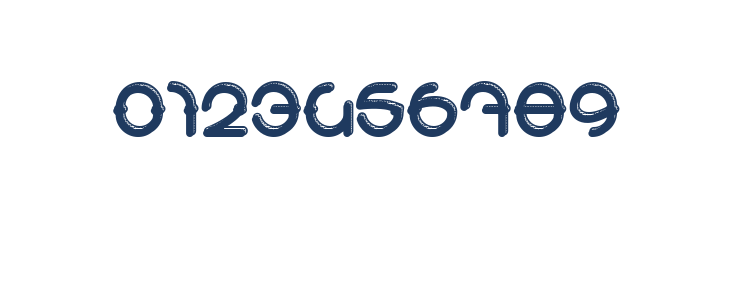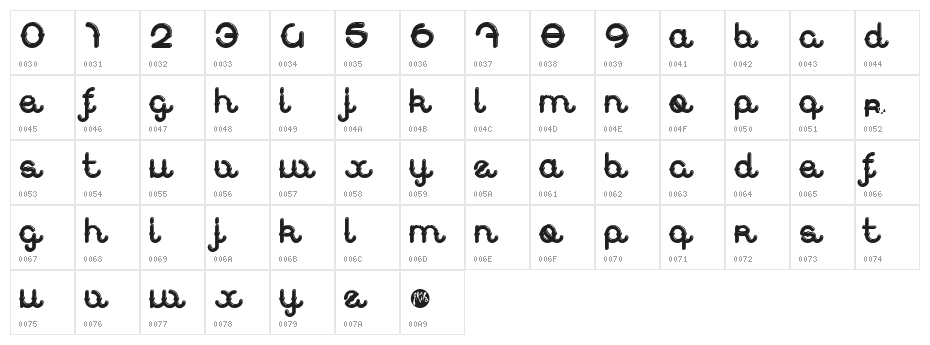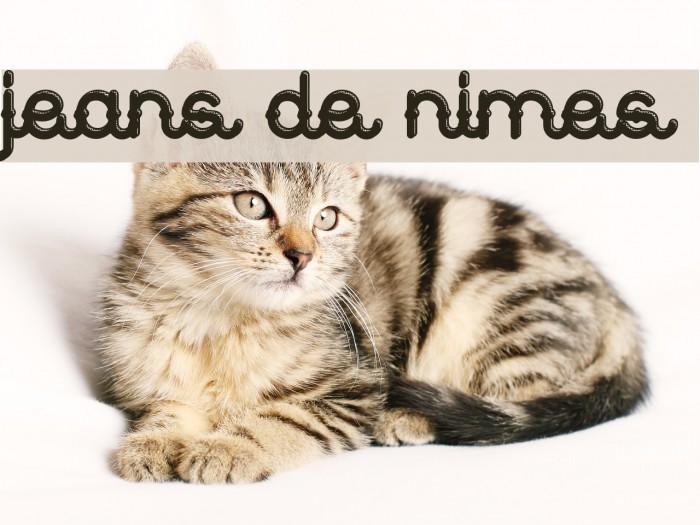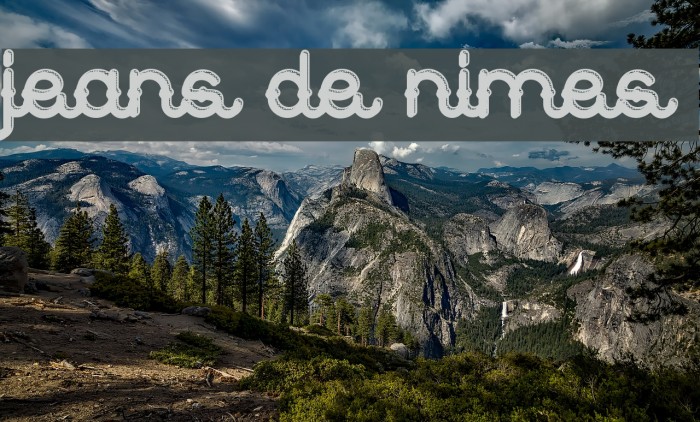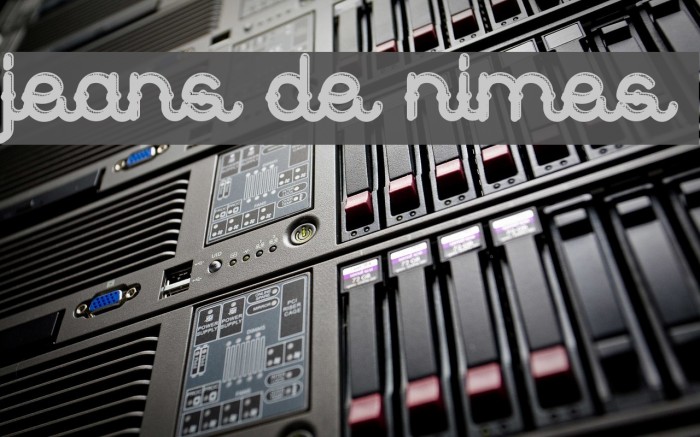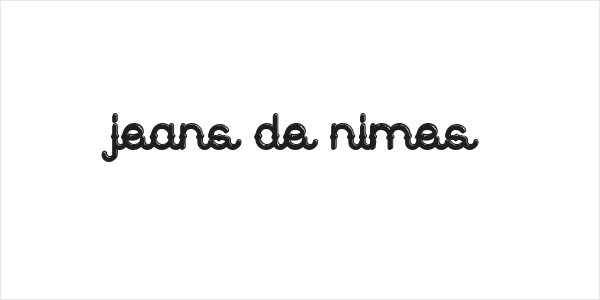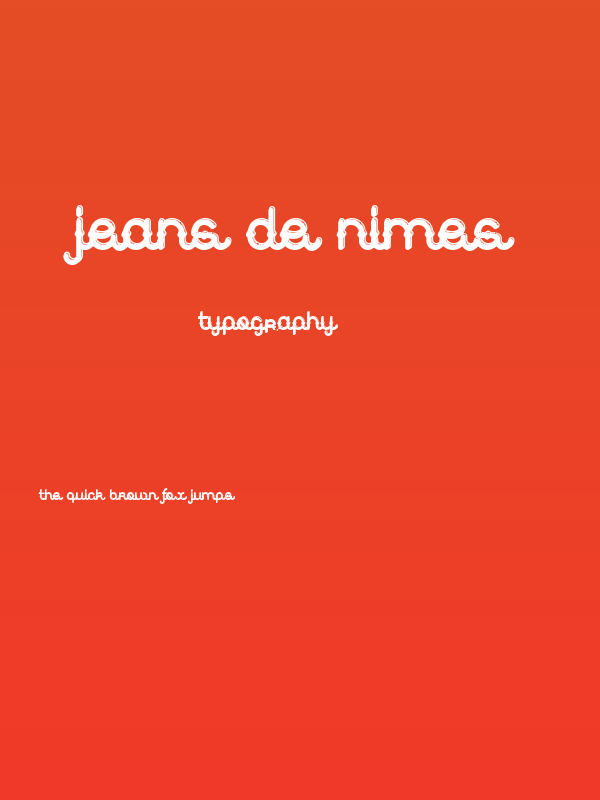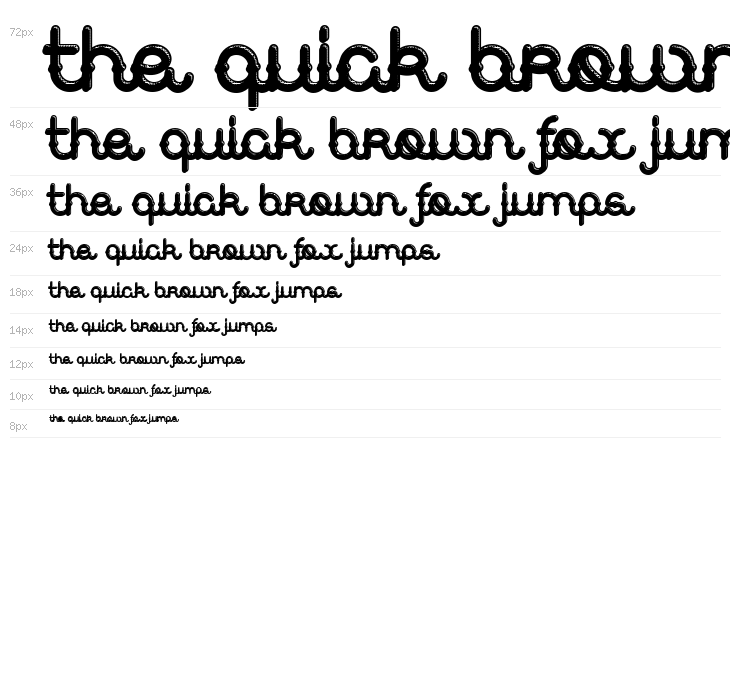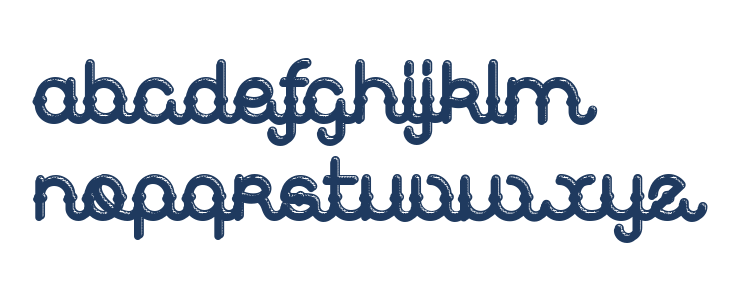
Jeans de nimes Font
Jeans de nimes Description
This font features a playful and whimsical design with a continuous, looping style that resembles a chain or rope. The characters are interconnected, creating a fluid and dynamic appearance. The strokes are consistent in width, giving it a uniform look, while the rounded ends add a friendly and approachable feel. The font maintains a balance between readability and decorative flair, making it suitable for creative and informal applications. Its unique style is eye-catching and memorable, ideal for projects that require a touch of fun and creativity.
Overall StylePlayful
Proposed ProjectsIdeal for children's book covers, playful branding, creative posters, and event invitations.